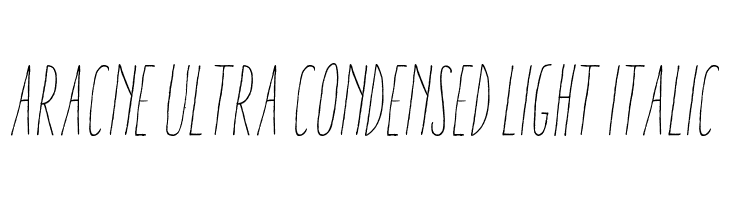
( Antipixel - Julia Martínez Diana - www.antipixel.com.ar/ )
A delicate, condensed, and light italic font with a graceful and dynamic appearance.
A light, elegant italic font with thin, elongated characters and generous spacing.